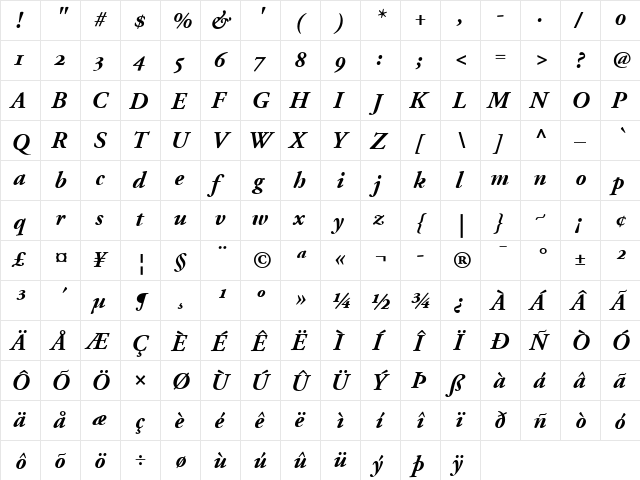
AGaramond BoldOsF Italic
Design Context for AGaramond BoldOsF Typeface
AGaramond BoldOsF is a composed and adaptable typeface that performs quietly and consistently across a wide range of design contexts. The dynamic lean of this cut emphasises speed and emphasis in any layout. The heavy weight commands attention and anchors typographic hierarchies.
Pro Tip: Use AGaramond BoldOsF for emphasis, pull quotes, and subheadings where its slanted energy can add rhythm to the layout.